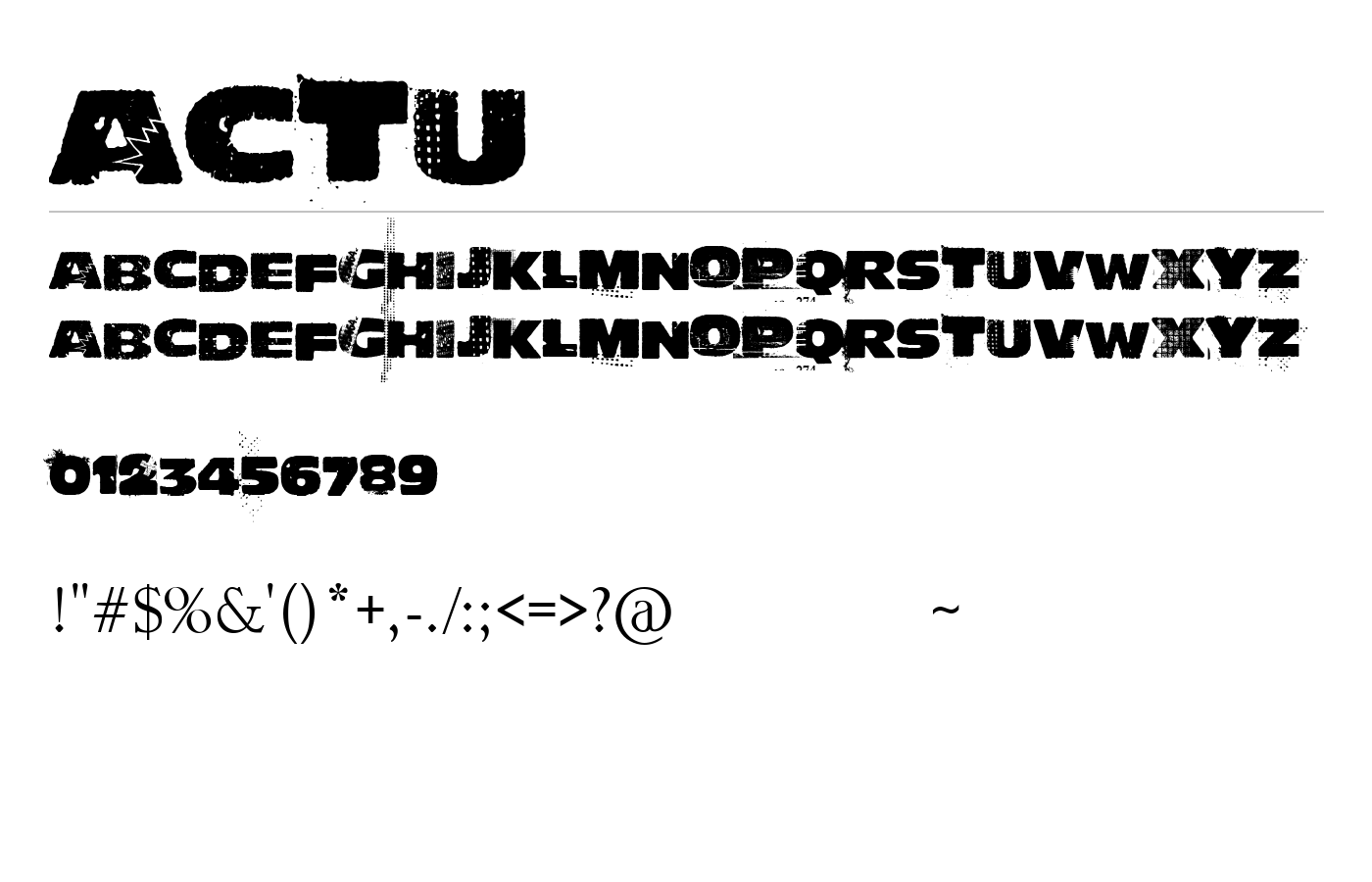
Actu Font is a bold, distressed sans-serif typeface characterized by its heavy weight and textured, worn appearance that adds a rugged, urban vibe. Its wide, blocky letterforms with rough edges and uneven ink coverage create a dynamic, edgy personality, making it ideal for eye-catching headlines, posters, and branding that seek to convey energy and an industrial or rebellious feel. This font works best in bold display use where its strong, gritty style can stand out and make a memorable impact.
Actu Font
About Actu Font